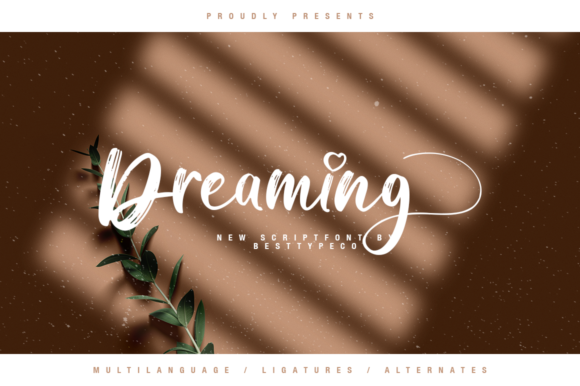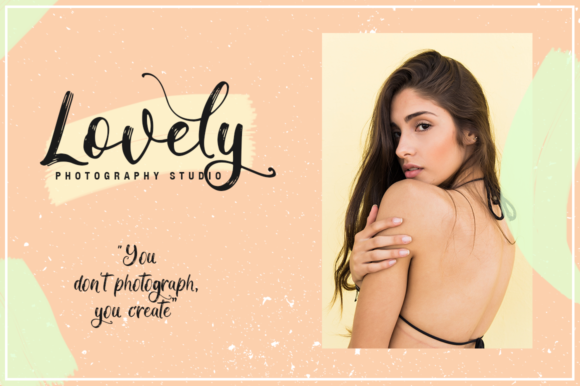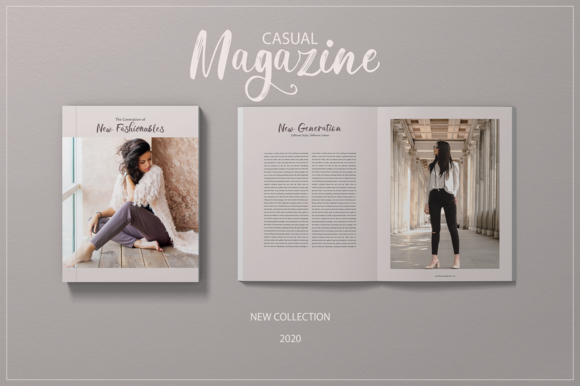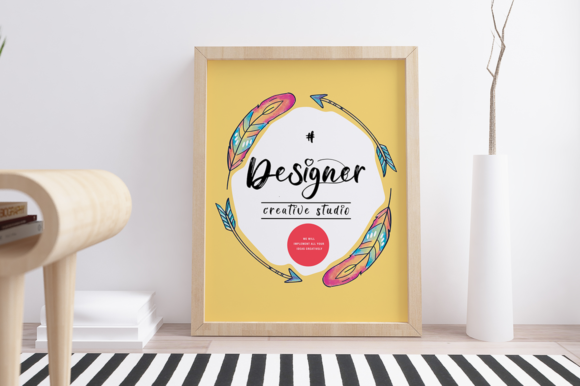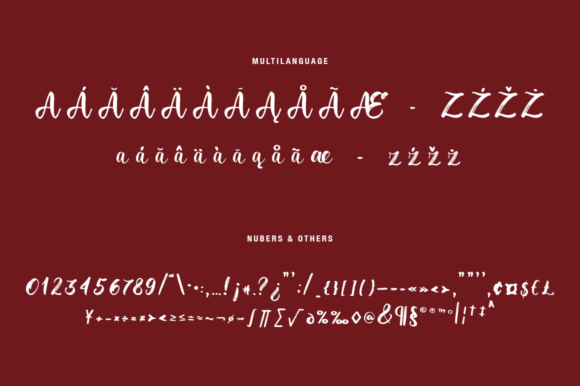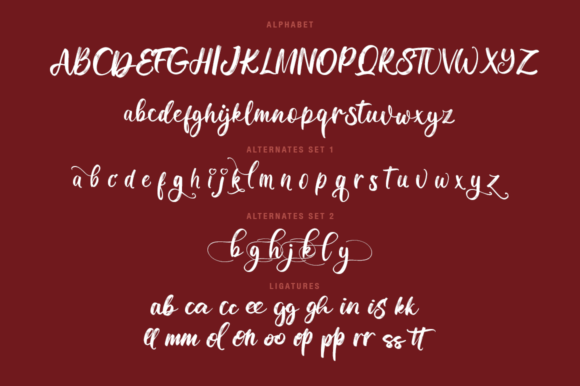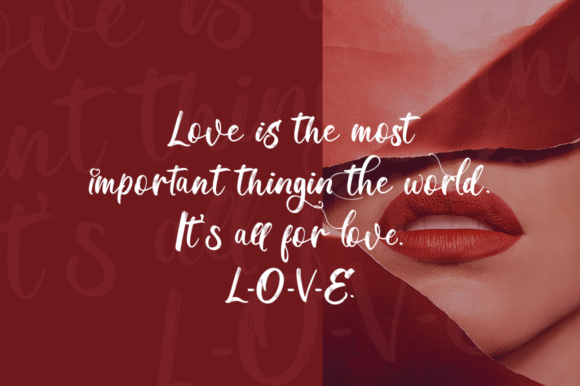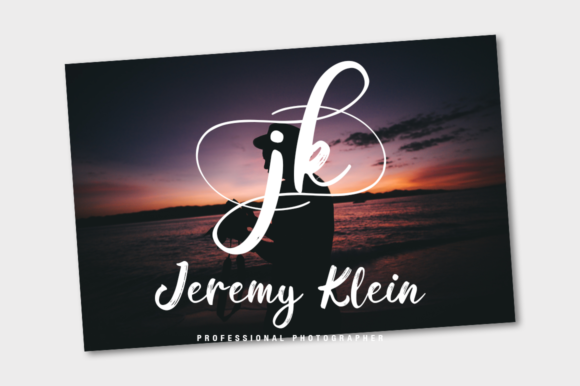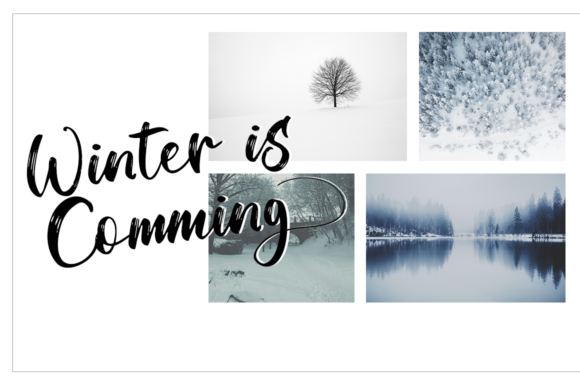
HomeScript FontsDreaming Font Script Fonts Dreaming Font FacebookXPinterestWhatsApp Dreaming Font Poster 2 Dreaming Font Poster 3 Dreaming Font Poster 4 Dreaming Font Poster 5 Dreaming Font Poster 6 Dreaming Font Poster 7 Dreaming Font Poster 8 Dreaming Font Poster 9 About Dreaming Font Dreaming is a stunning and dreamy script font that will turn any design project into a true piece of art. DOWNLOAD NOW People also explored Rainbow Font Fishing Journey Font Salamanta Script Font School Education Font Expression Exchange Font Springtime Sunshine Font Baby Shita Font Baby Angelina Font Morelove Font 283 0 TagsDreaming Font Previous articleMallona FontNext articleFabregas Font LEAVE A REPLY Cancel reply Comment: Please enter your comment! Name:* Please enter your name here Email:* You have entered an incorrect email address! Please enter your email address here Website: Save my name, email, and website in this browser for the next time I comment. Personal Use Free Rocketto Personal Use Free Read more about this font Loving You Personal Use Free Read more about this font Ontel Personal Use Free Read more about this font Sweet Cake Personal Use Free Read more about this font BLOG Free Fonts Risk: Why Free Fonts Can Be Dangerous for Designers Free Fonts Risk: Why Free Fonts Can Be Dangerous for Designers Using free fonts is a common practice in web and graphic design. However, the... How to Cut Any Font on Cricut: Convert a Font to SVG (Free) Elegant Wedding Invitation Fonts – Handwritten & Script Fonts The 10 Best Handwriting Fonts to Add Personality to Your Designs